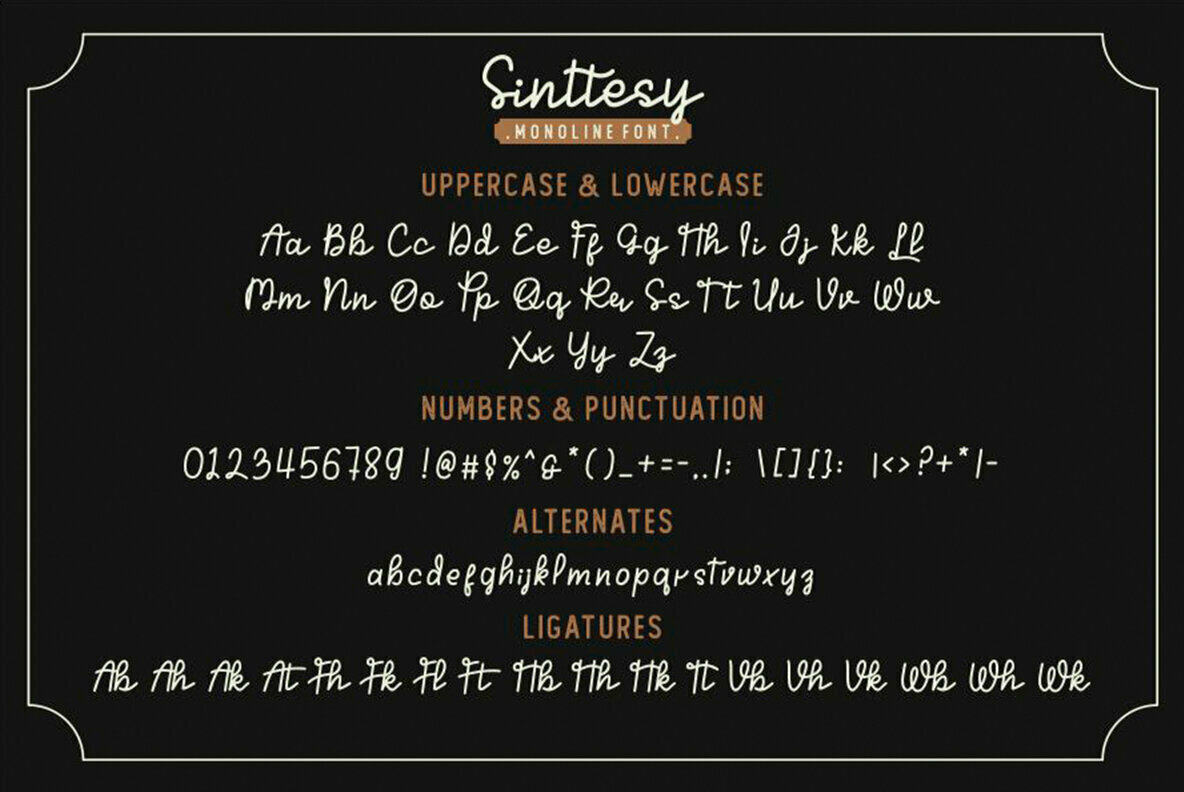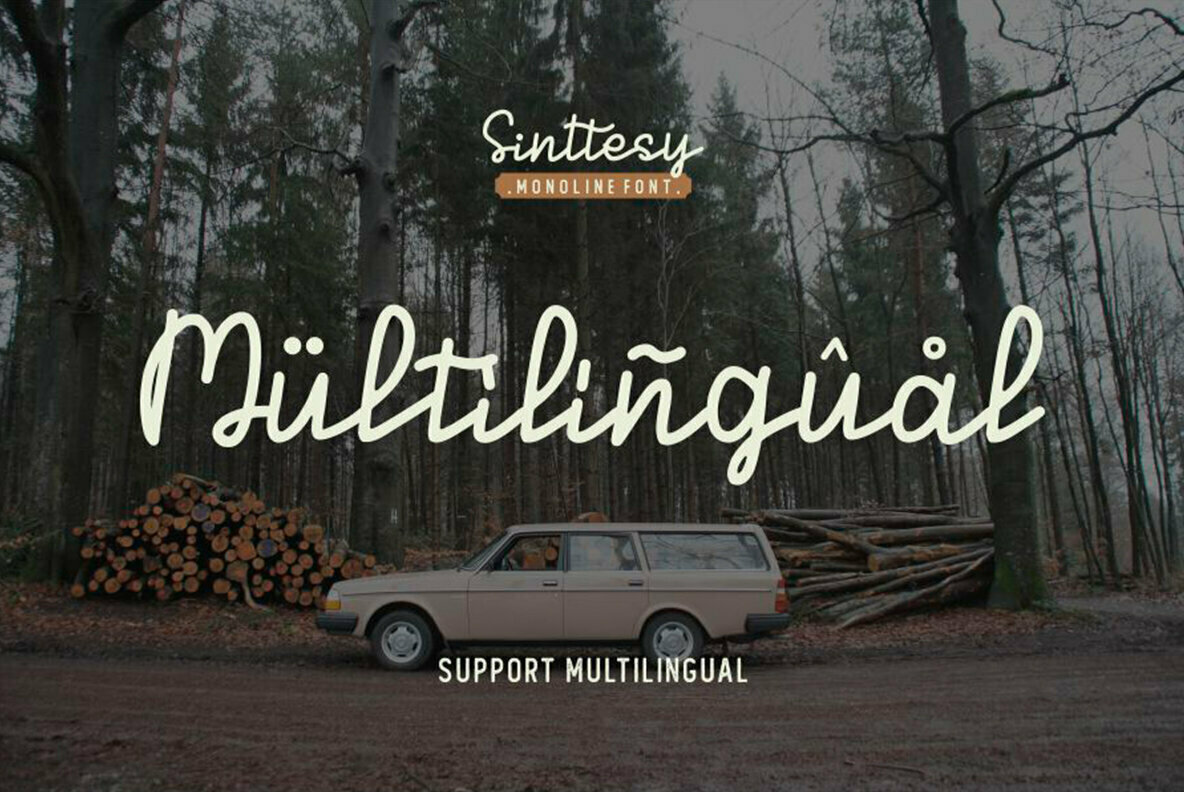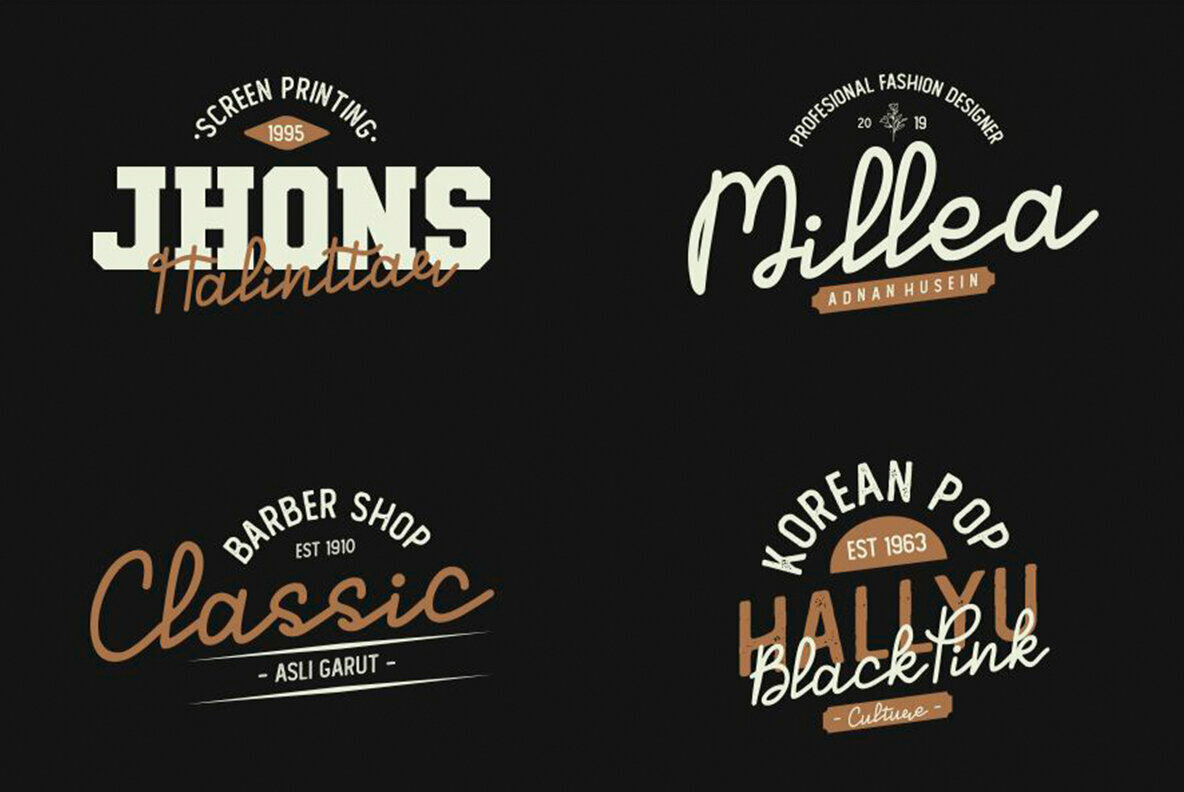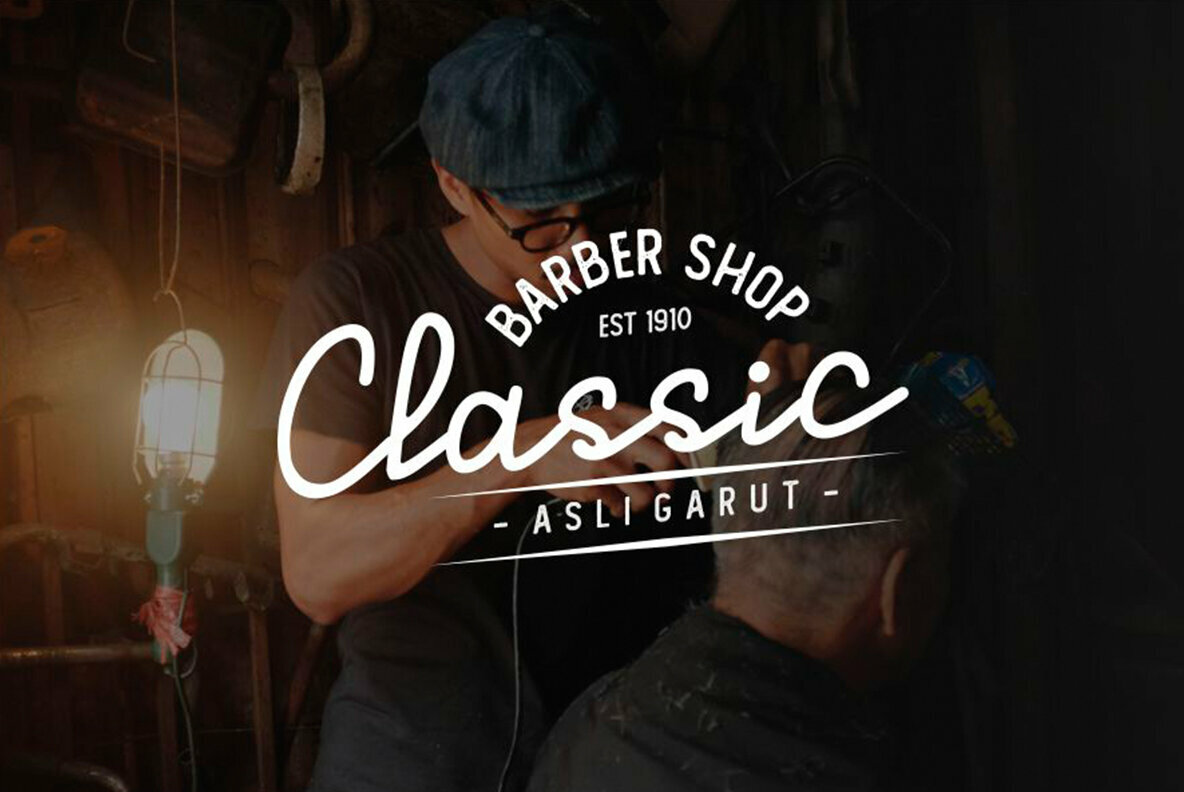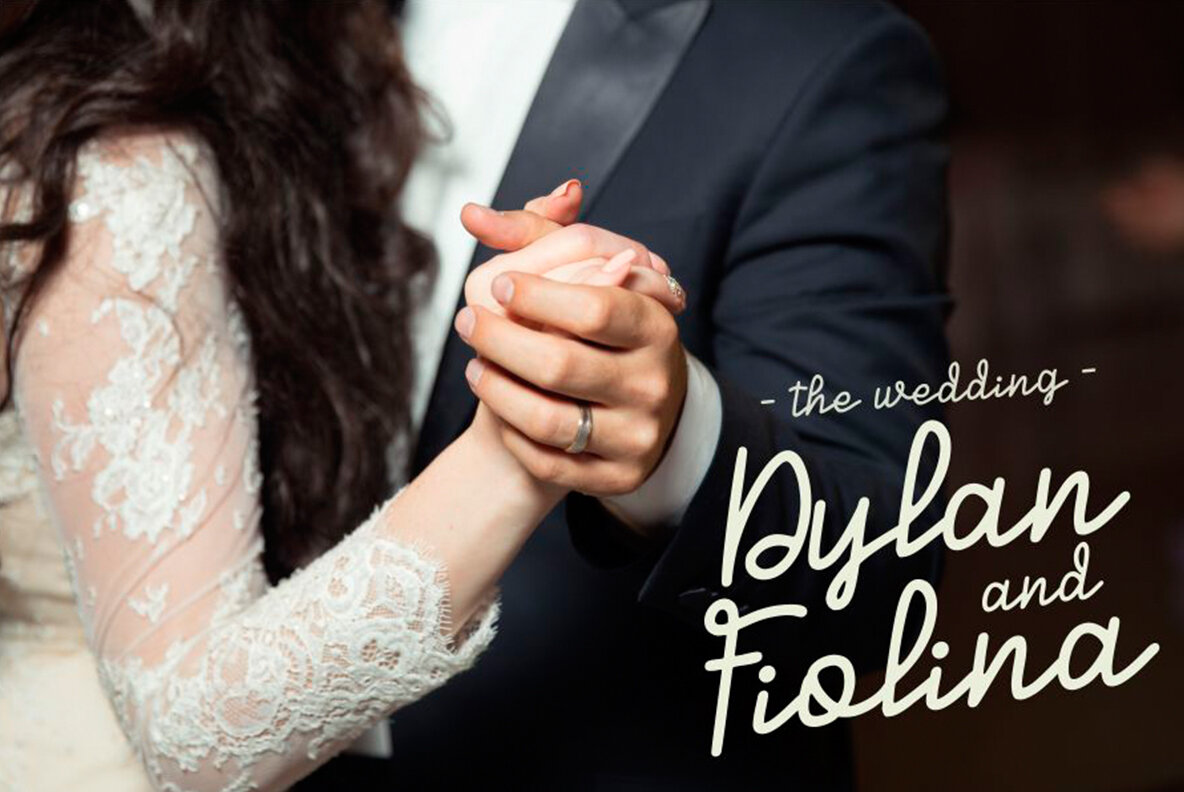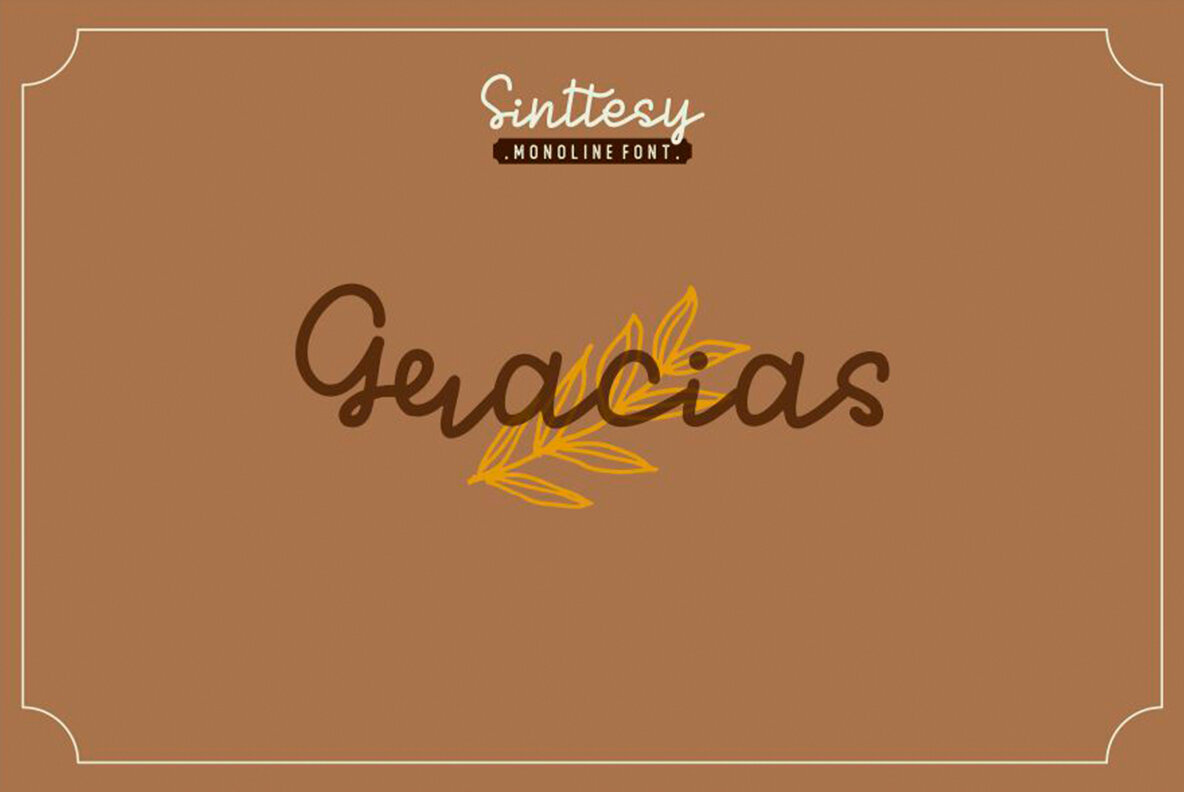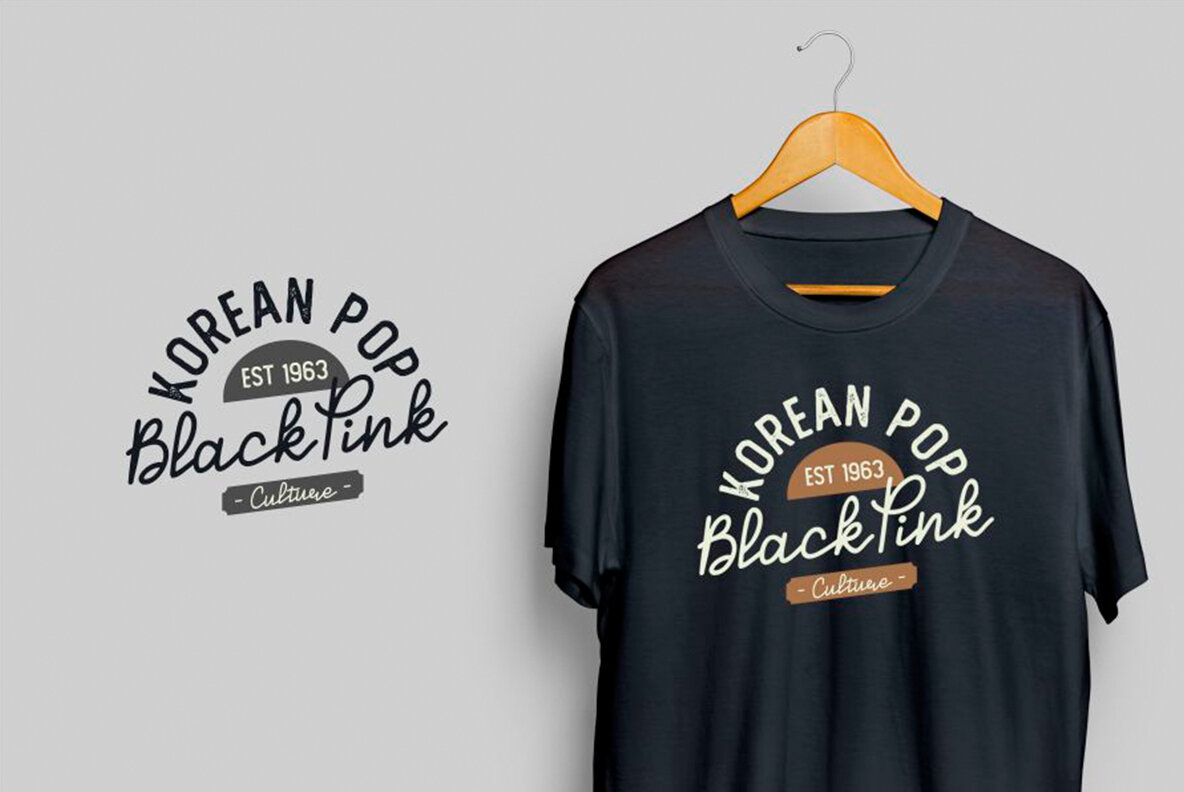
Sinttesy Font
Sinttesy
The Sinttesy font from Sabrtype Studio embodies the fluid elegance of natural handwriting. Its versatile style makes it an ideal choice for various creative projects, including logos, branding, and wedding designs. Sinttesy enhances the allure of social media posts, advertisements, and product packaging by adding a touch of personal authenticity. Sinttesy provides extensive foreign language support, enabling designers to navigate global audiences with ease. It supports an array of characters from À to ÿ, making it accessible for international projects. Features:Sinttesy: Effortless Handwritten Font for Versatile Design